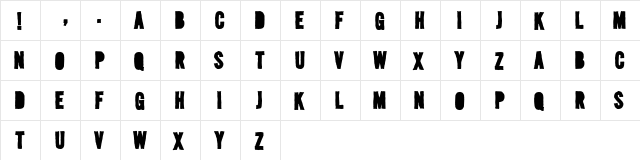
Media Blackout Regular
Design Context for Media Blackout Typeface
Media Blackout offers clean, dependable letterforms without strong stylistic allegiance, making it a practical choice for designers who need flexibility.